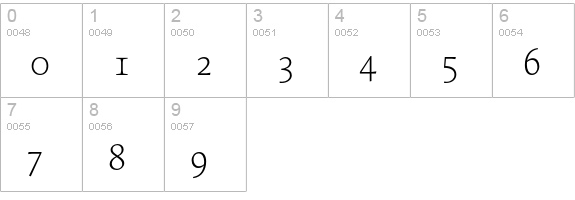
Proforma-UltraLight is an airy, ultra-refined variant in the Proforma typeface family \xE2\x80\x94 well suited to minimalist headlines and refined display use.
The Proforma-UltraLight font is a sleek and modern typeface that exudes elegance and sophistication. Its ultra-light weight adds a touch of delicacy and finesse to any design project. With its clean lines and minimalistic style, Proforma-UltraLight is perfect for creating a refined and polished look for branding, logos, headlines, and more. What sets Proforma-UltraLight apart is that it is available for free download at FontsMarket.com. This means that you can easily access this exquisite font without any cost, making it an ideal choice for designers looking to enhance their work without breaking the bank. Don't miss out on the opportunity to elevate your designs with the Proforma-UltraLight font - download it for free today!